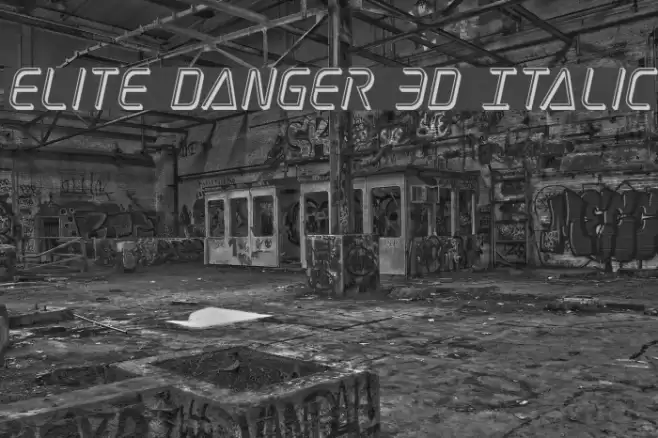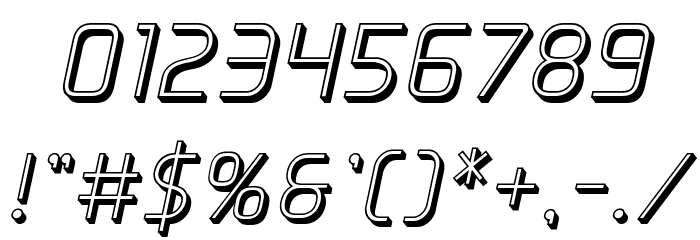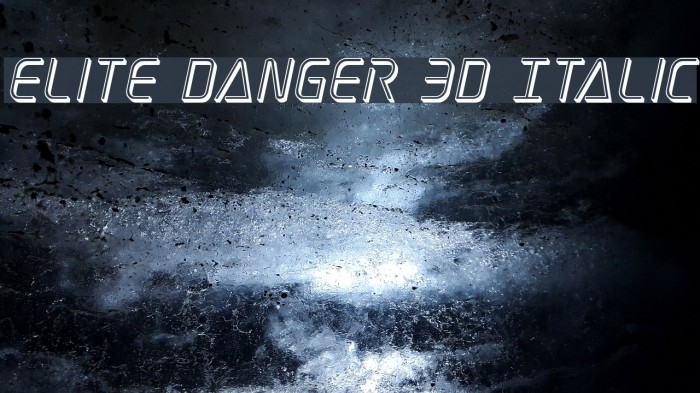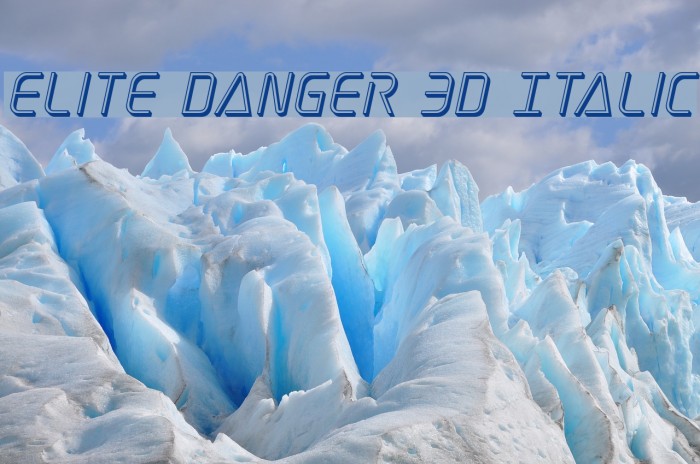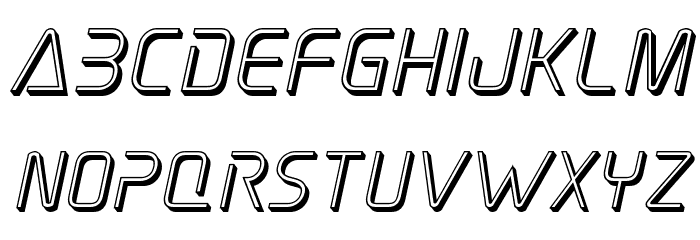
Elite Danger 3D Italic Font
Elite Danger 3D Italic Description
This font features a dynamic and futuristic design with a 3D effect that gives each character a sense of depth and movement. The italicized style adds a forward-leaning energy, making it ideal for projects that require a modern and edgy look. The uppercase and lowercase letters are consistent in their angular and geometric shapes, while the numbers and special characters maintain the same aesthetic, ensuring uniformity across all text. The font's unique style is perfect for creating eye-catching headlines, logos, and other design elements that need to stand out.
A futuristic 3D italic font with angular, geometric shapes and a dynamic style from Sci-fi fonts.
- Proposed Projects: Ideal for sci-fi themed designs, video game titles, tech company logos, and modern advertising campaigns.